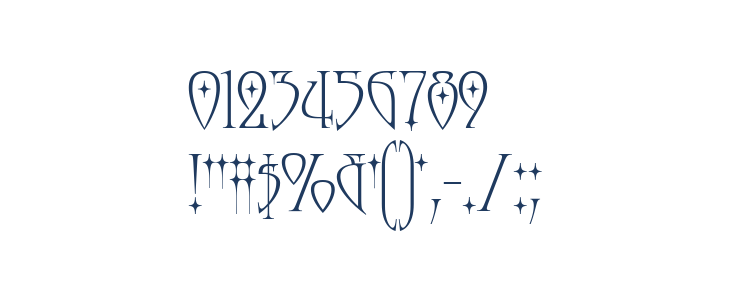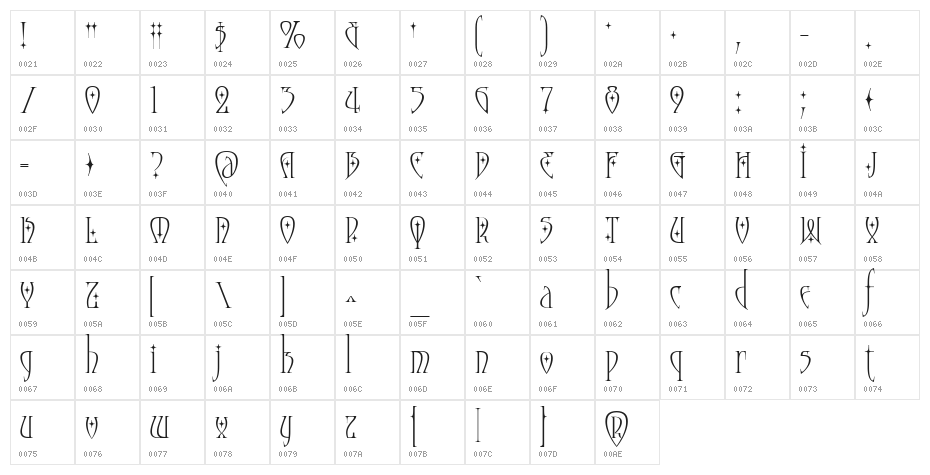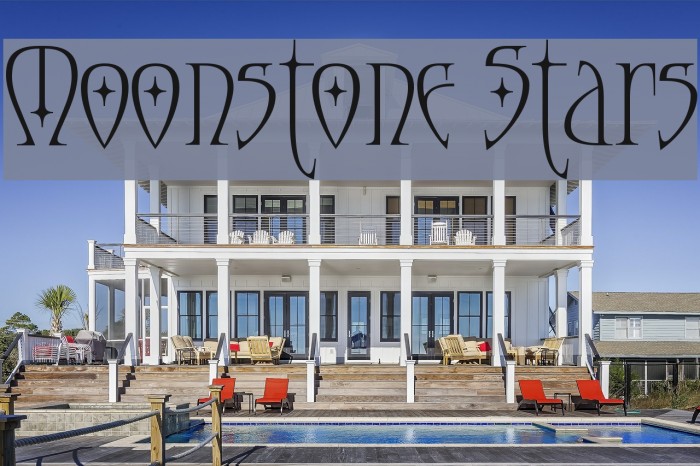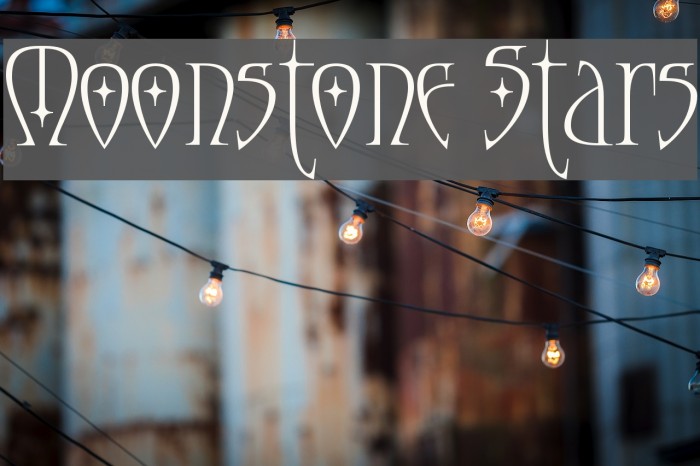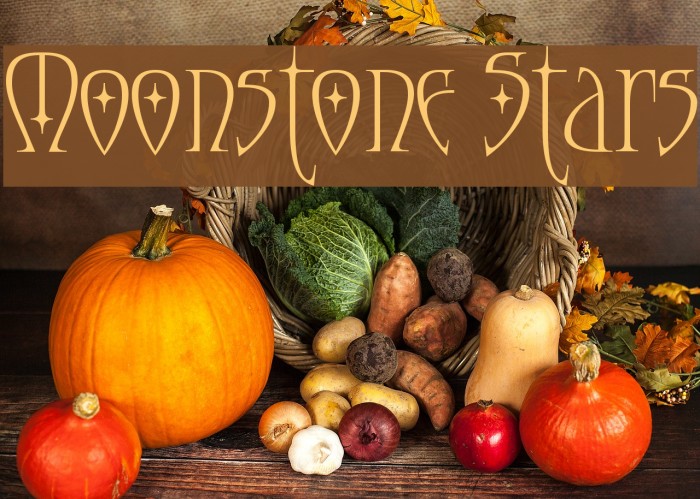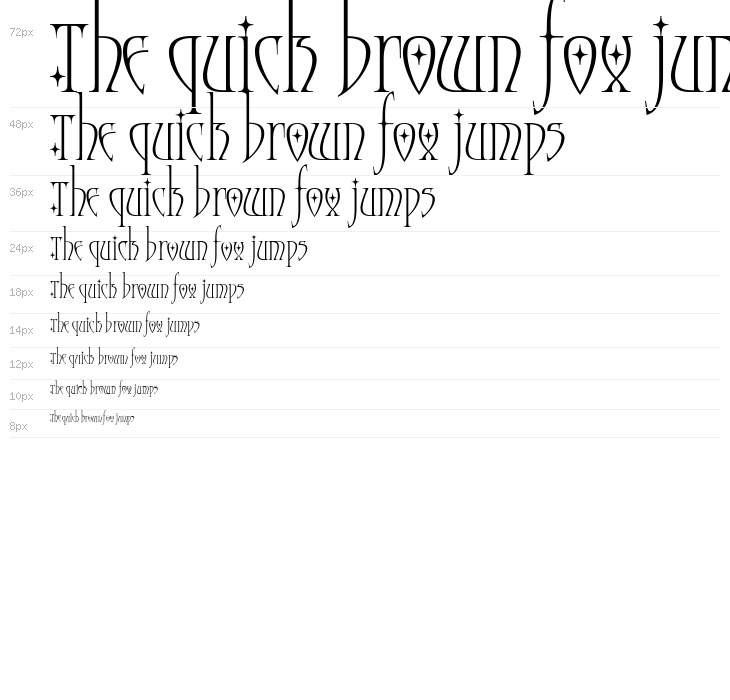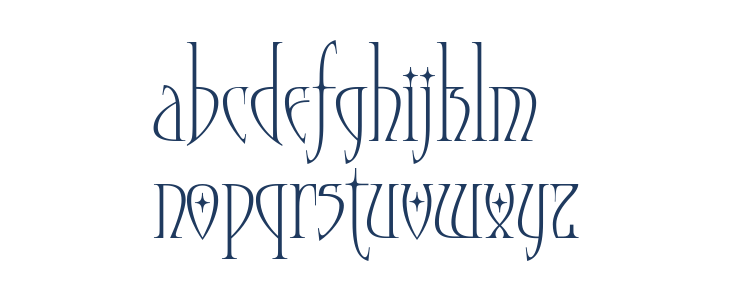
Moonstone Stars Font
Moonstone Stars Description
This font features a unique and decorative style, characterized by its intricate star motifs integrated within each character. The letters exhibit a blend of sharp angles and smooth curves, creating a celestial and mystical appearance. The uppercase and lowercase letters maintain a consistent design theme, with the star elements adding a whimsical touch. Numbers and special characters follow the same ornate pattern, ensuring a cohesive look across all glyphs. The font's distinctiveness makes it stand out, ideal for projects seeking a magical or fantasy aesthetic.
| Proposed Projects | Ideal for fantasy book covers, magical event invitations, and themed branding materials. |